Welcome to our roundup of the best new fonts we’ve found online in the last four weeks. In this month’s selection we have a mixture of different styles, from highly practical serifs, to experimental display typefaces. Enjoy!
GT Flaire
GT Flaire aims to translate the bold expressive curves of calligraphy into digital form. It blends profesionalism with a lively, playful style to bridge the gap between business and creativity. It’s an excellent choice for corporations hoping to create a more relaxed brand image.
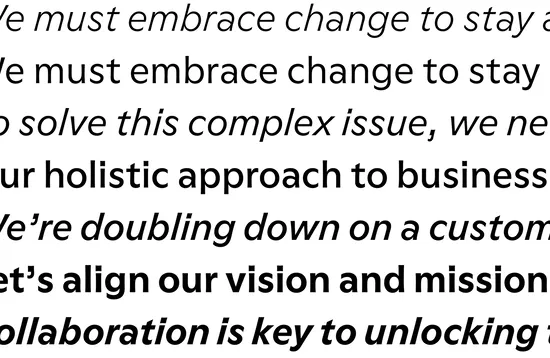
Paramount Rounded
Paramount Rounded is a humanist-geometric typeface blending neo-futuristic style with geometric traditions. Featuring versatile alternates, it adapts from sleek spaceship branding to everyday packaging. Also available in a regular, non-rounded version, Paramount Rounded is a great option for branding.
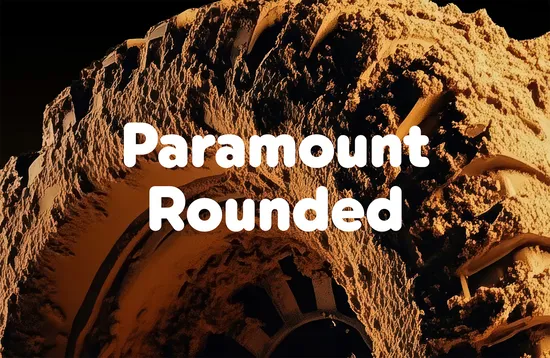
Wulkan
Wulkan was designed a decade ago when the designer needed an expressive serif, couldn’t find one, and ended up creating his own. It started out as a display font; the latest iteration is a complete redesign that includes text and heading variations, new weights, and variable font options.
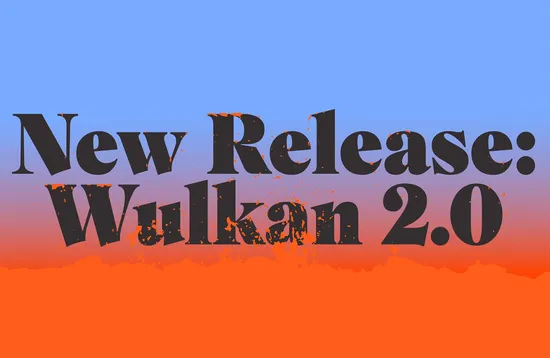
Groutpix
Groutpix is an extreme pixel-based font that references the graphics in dance music. It works best in small doses, with wide letter-spacing. It would be an excellent logo font for the right combination of letters.
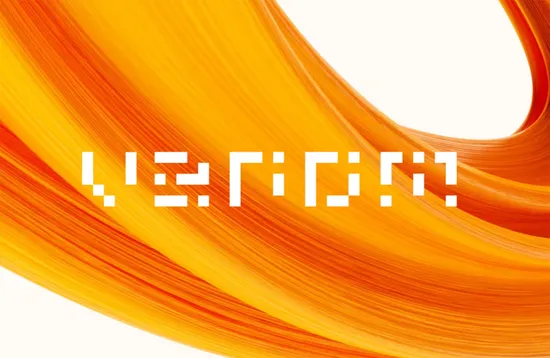
Callas
Callas is a high-contrast typeface with a fresh, lively appearance, blending classic forma with the elegance of modernist styles. Its design is distinguished and crisp, offering a clean look with a hint of extravagance, ideal for refined yet expressive typography.
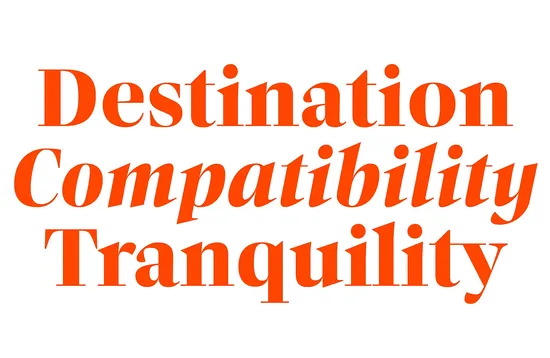
Gelatic
Gelatic is a vibrant display sans with a sunny outlook. The playful, positive shapes are ideal for relaxed, friendly logotypes. There are six styles and a variable font option for flexibility.
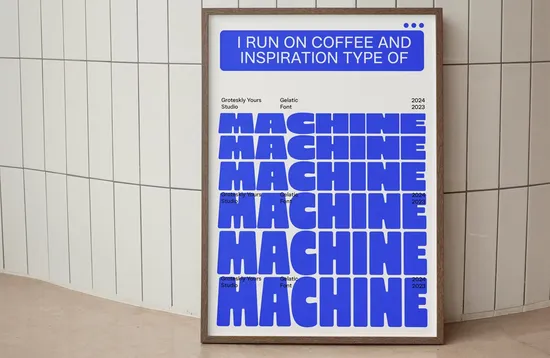
Zybo Pop
Zybo Pop is a playful, bubble-style graffiti font that delivers a bold, confident aesthetic to any project. It‘s amazing that a style that dates back to the late 1970s can still feel fresh and young, but it does. It’s a great choice for editorials, posters, and lifestyle branding.
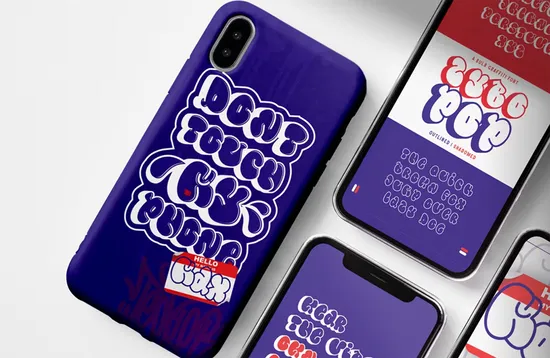
RT Dromo
RT Dromo is a geometric sans that was inspired by vintage 1980s concert tickets. It combines robust, functional shapes with contemporary digital aesthetics for a balanced, retro-charm. It’s available in 16 fonts across four weights, including italics and monospace styles.
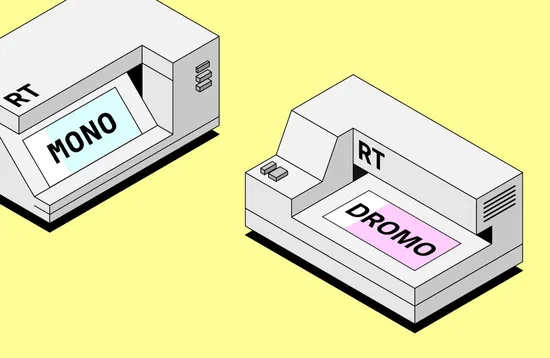
Aukio
Aukio, which means “square” in Finnish, is a high-contrast display typeface inspired by Nordic calligraphy. Its angular, squarish forms blend traditional humanistic shapes with a digital approach, creating a contemporary design suited for striking titles.
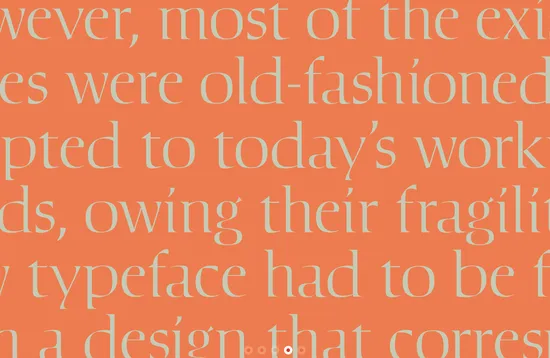
Apex Bound
Apex Bound is an graffiti font with Solid, Outline, Inner Shadow and Extrude styles that allow you to create depth, volume and definition for dynamic street art-style typography.
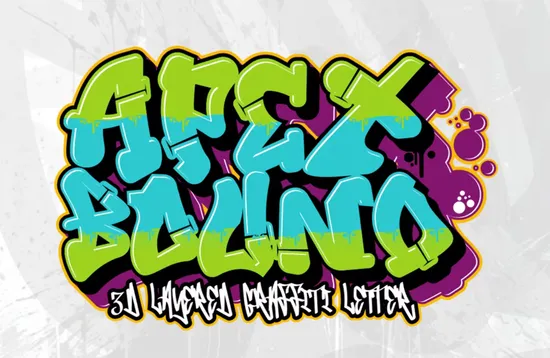
Melun
Melun is a geometric sans-serif with retro flair. It comes in three distinct styles: Normal, High, and Display, each with a range of different weights and accompany italics. It has a futuristic quality that makes it excellent for posters and editorial work.
Editora
Editora is a modern take on neoclassical styles. Designed for editorial design where elegance is required. Editora has 18 styles, with a range of weights, making it as practical as it is charming.
Julia
Julia is a cursive font that blends elegance, fluidity, and readability. Its refined loops, swashes and clean forms create a modern take on a classic look. It’s currently only available in a Light weight, but more weights are on the way.
Pulso
Pulso is one of DSType’s Next Fonts project — essentially beta releases of upcoming fonts. Designed for demanding display conditions, from screens to print, Pulso features three weights plus italics, and large text versions. Pulso will be finalised in 2025 with full language support but you can get early access now.
Fox Gavin
Fox Gavin is a playful font that’s excellent for children’s branding. It comes in four styles for layering and is perfect for display type, logos, T-shirts, and any time you need an eye-catching, friendly typeface.